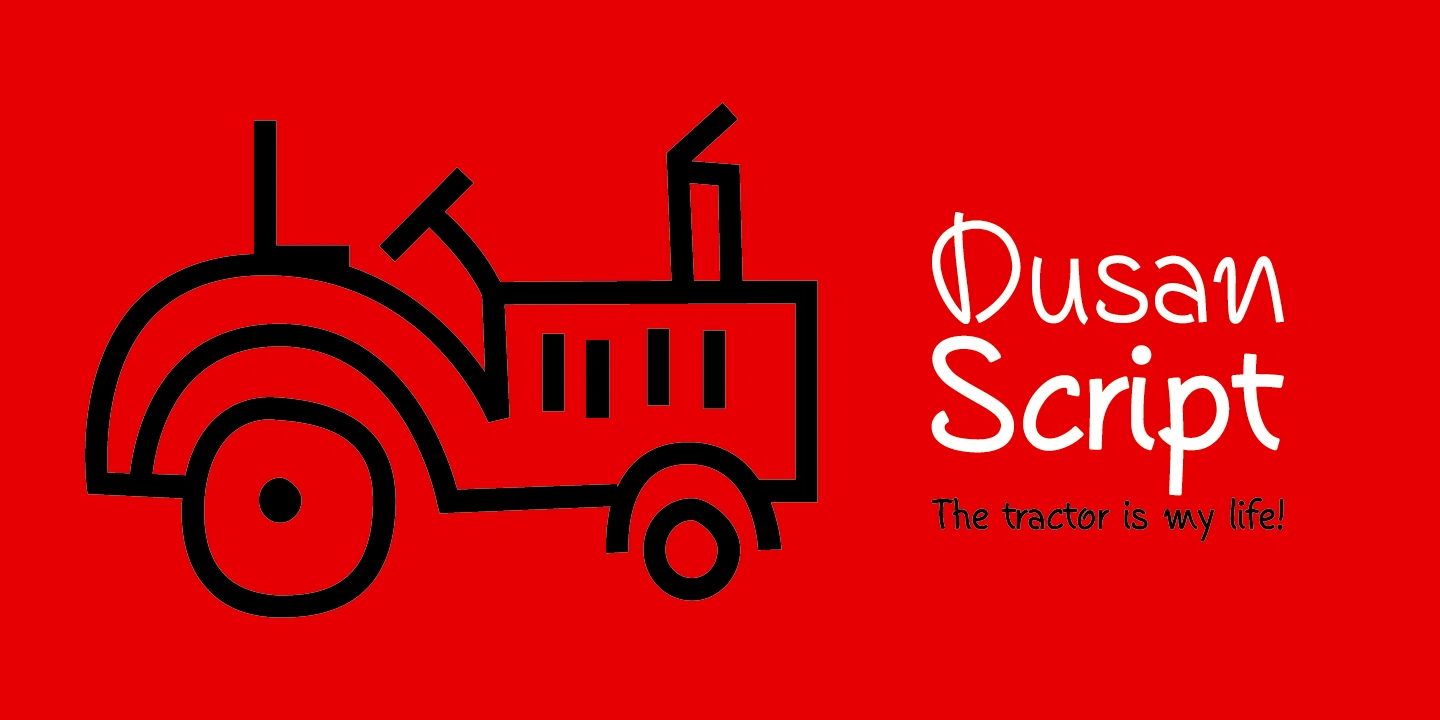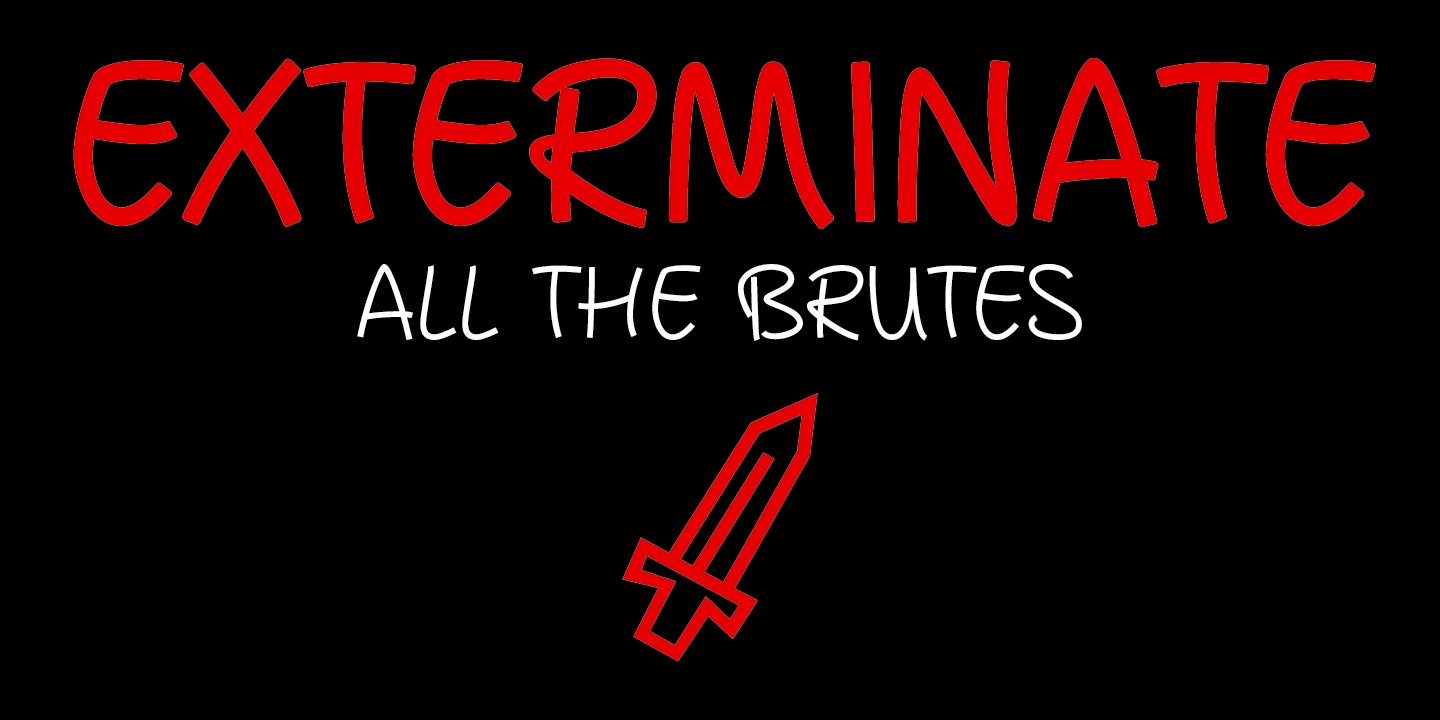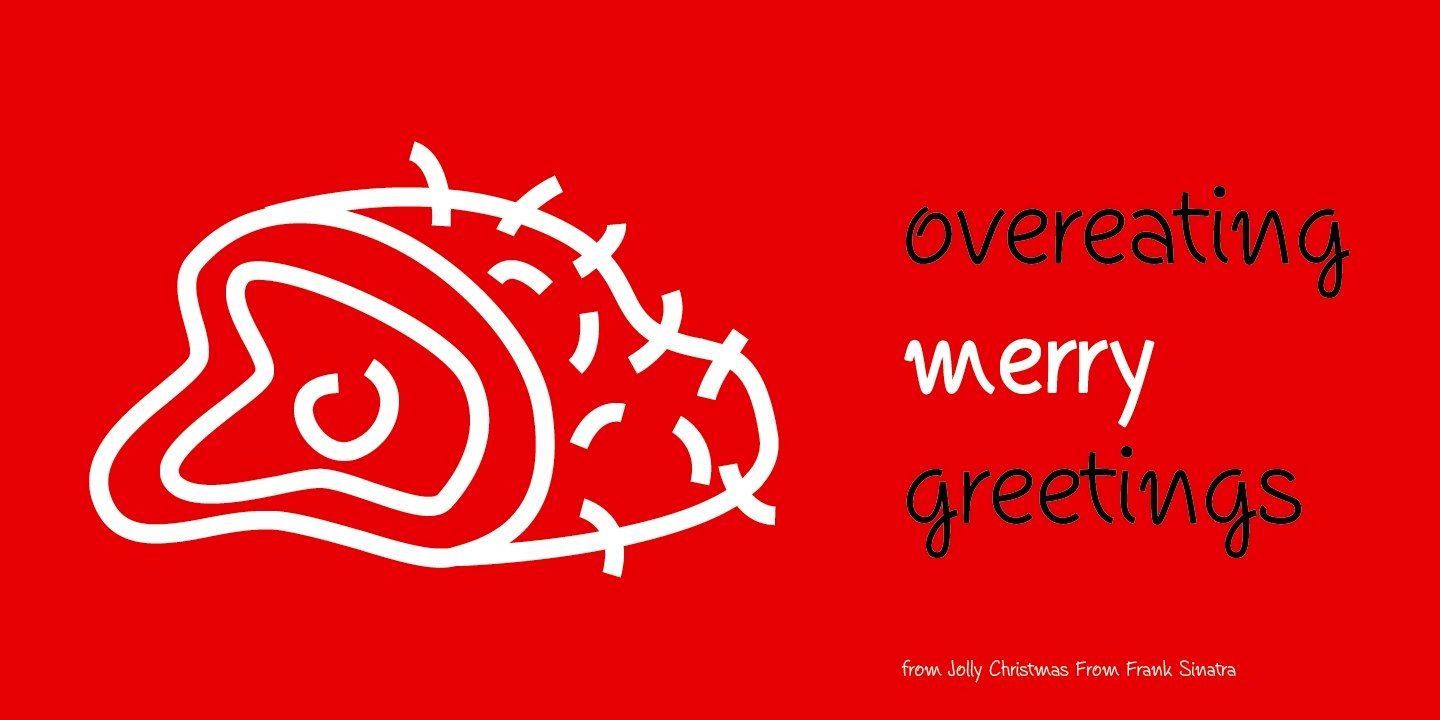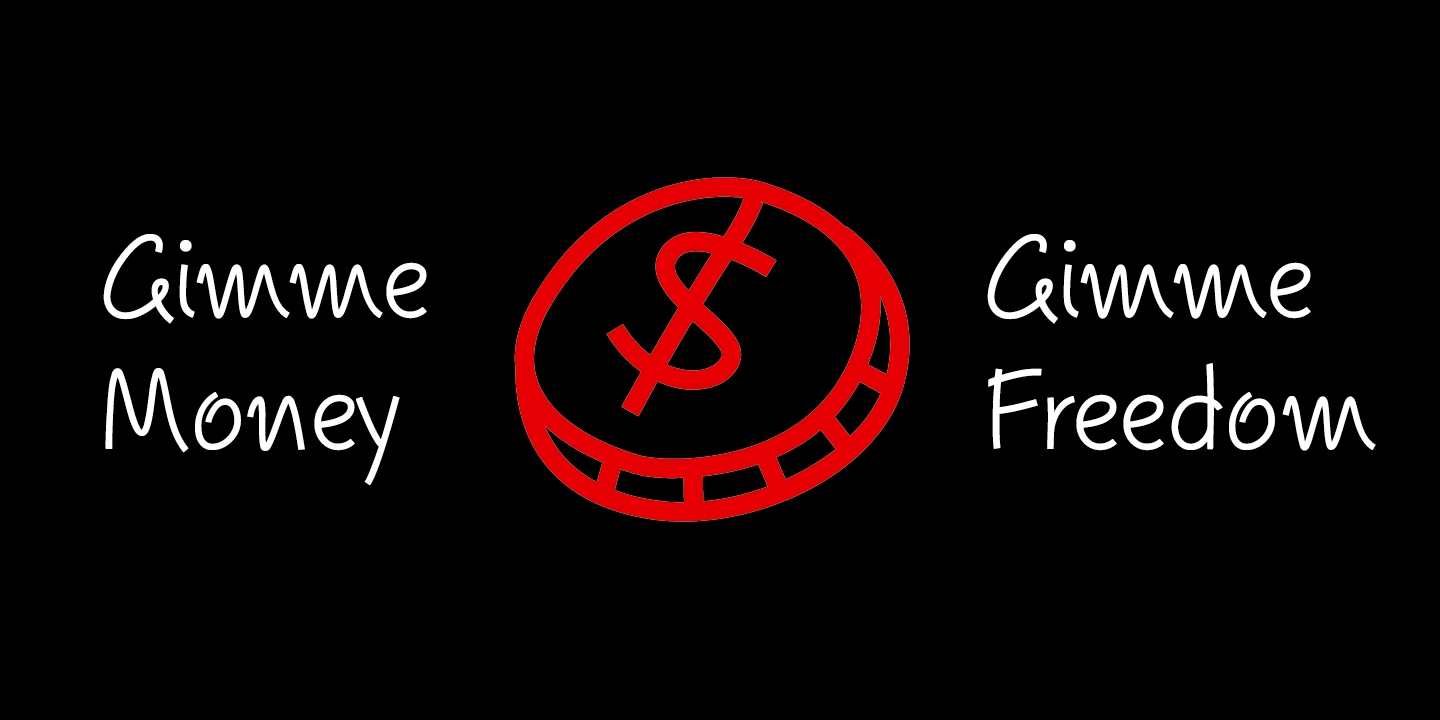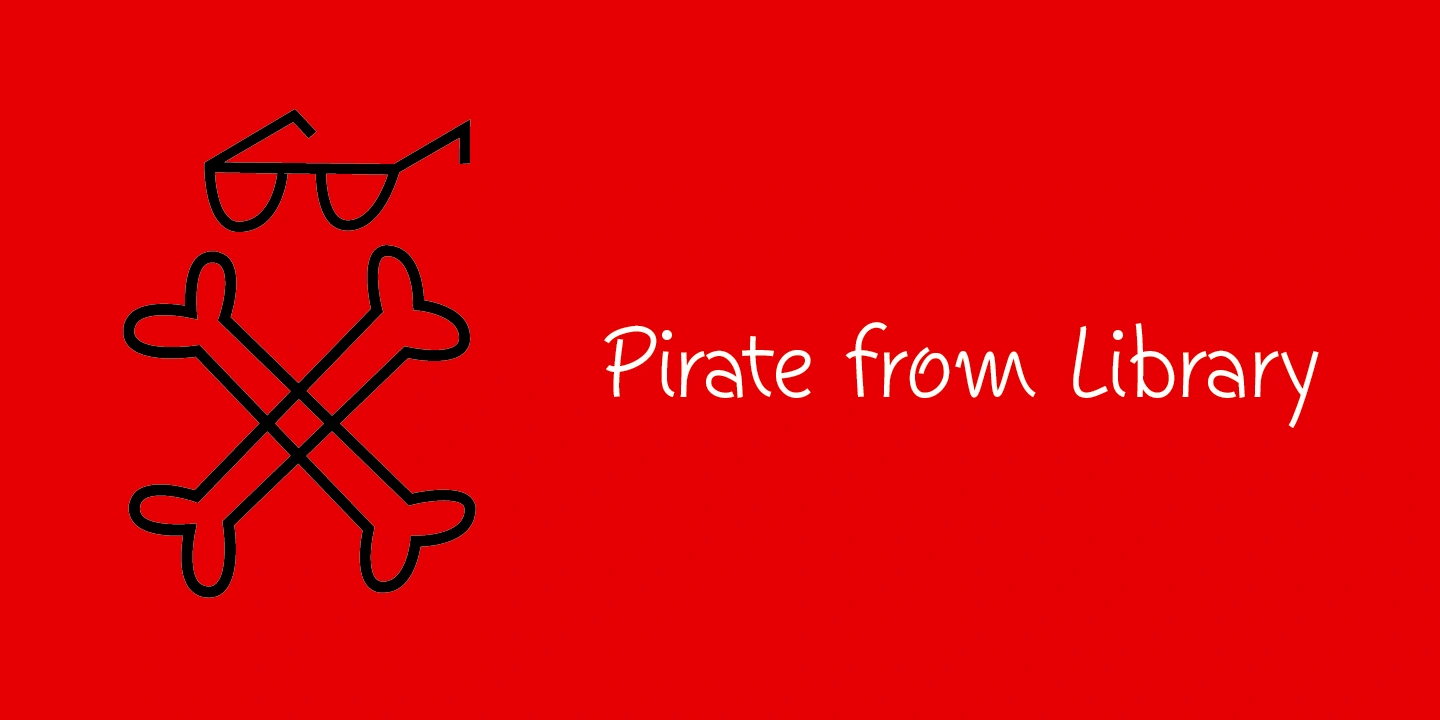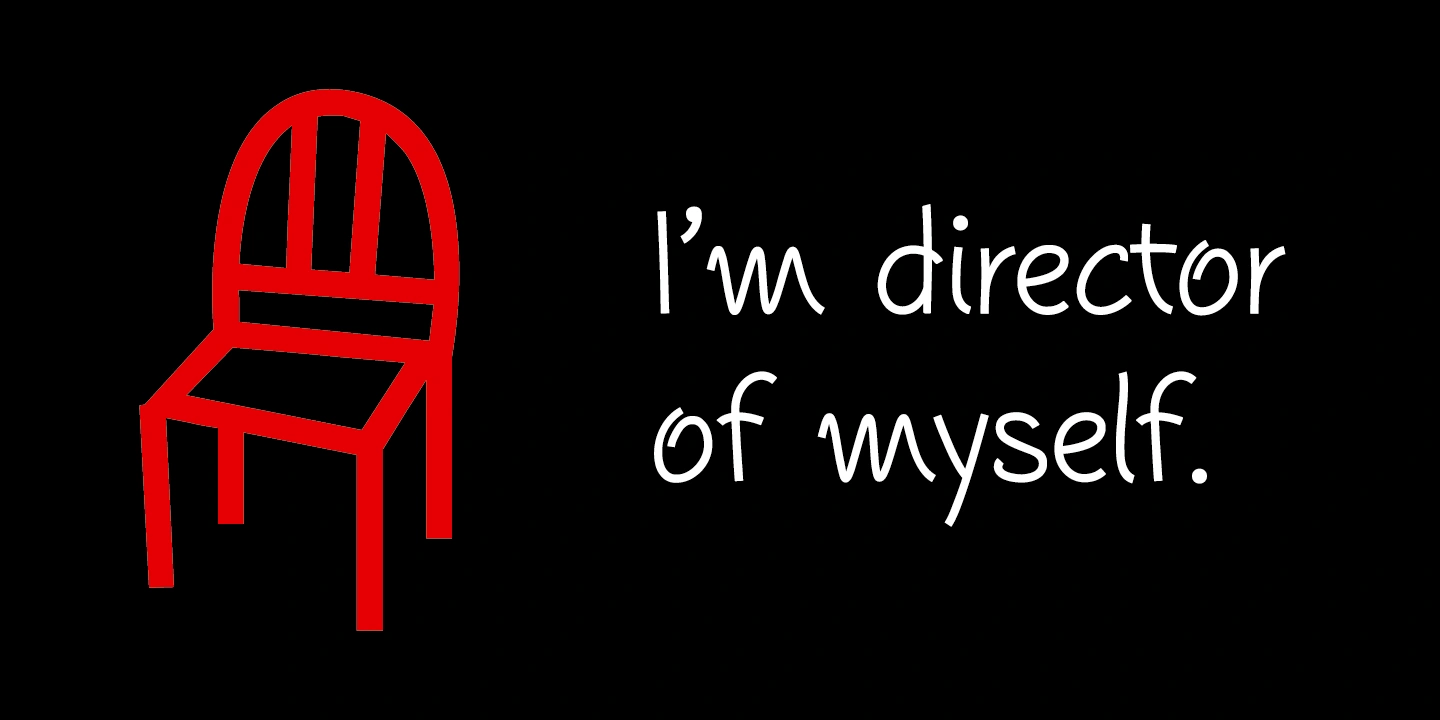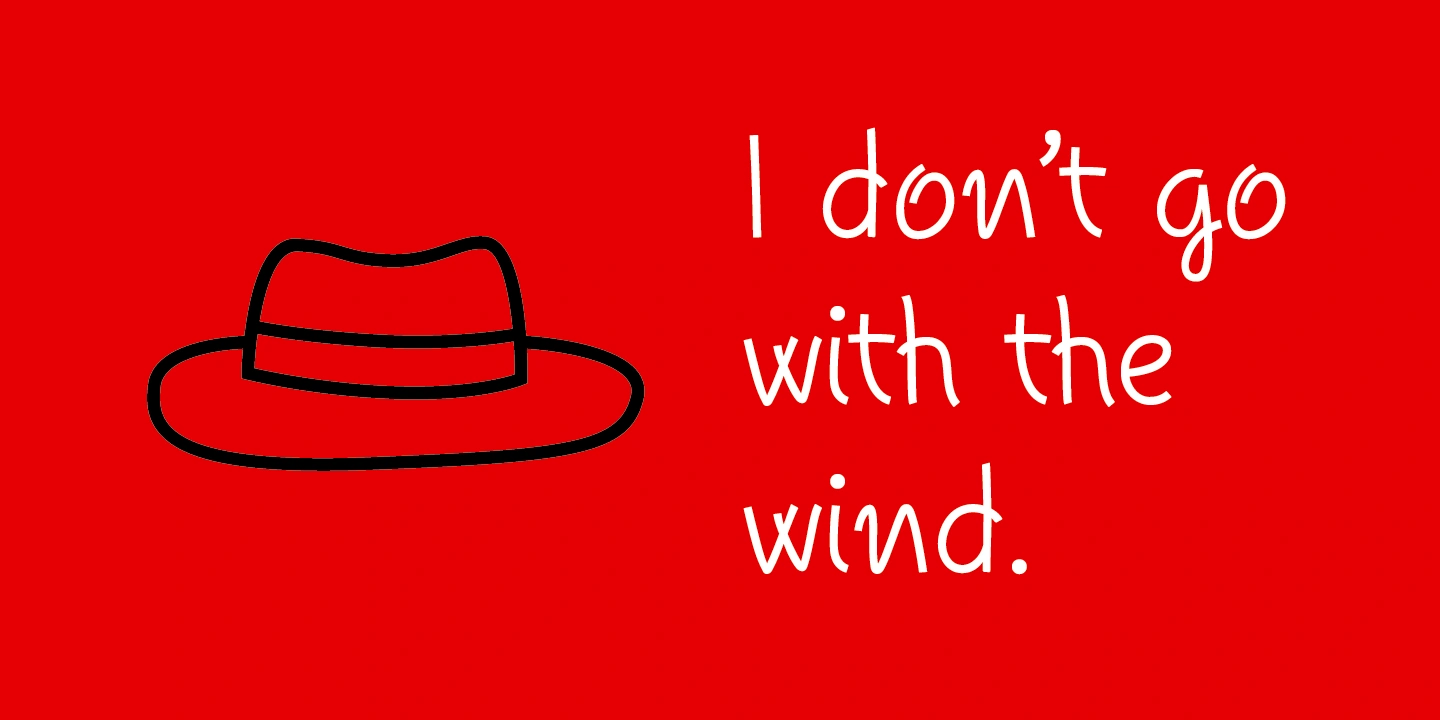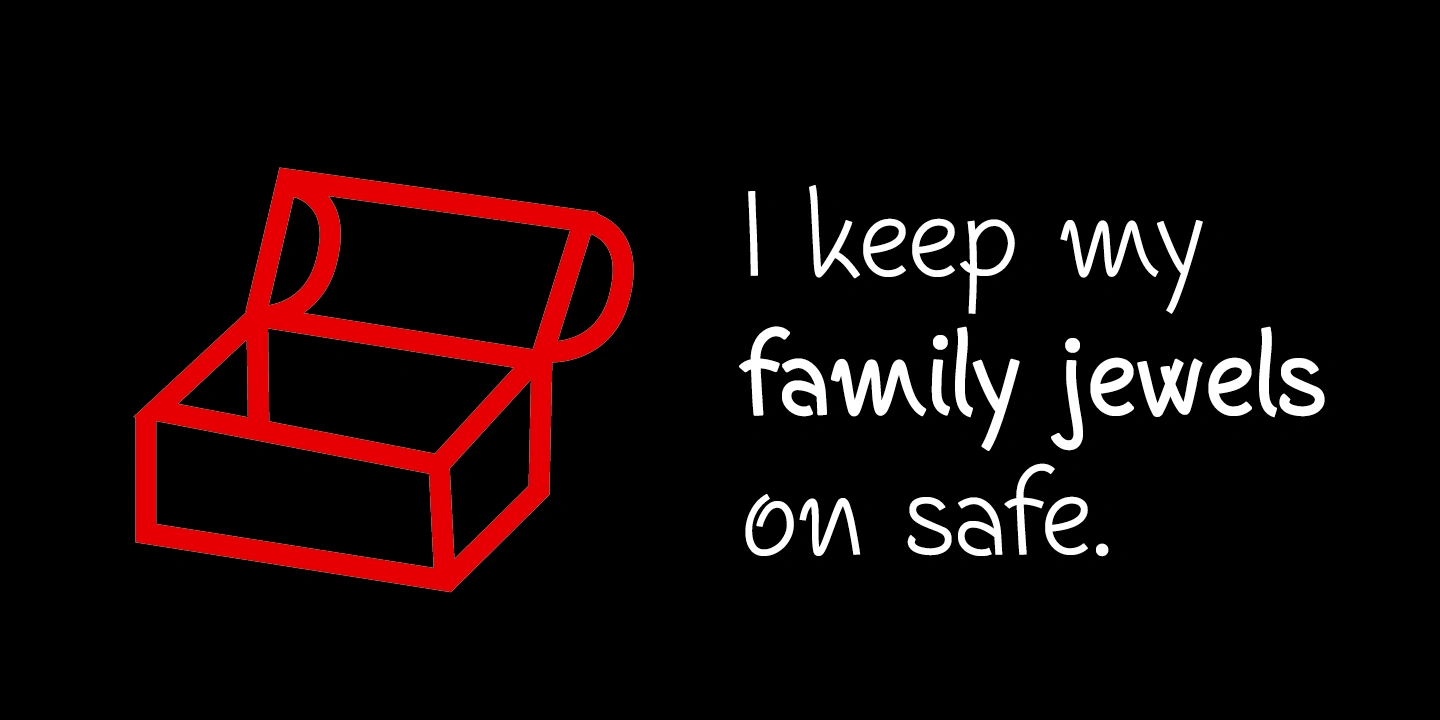
The Dusan Script font family is a wonderful set of handwriting script fonts that captures the graceful flow and idiosyncrasies of Dusan's penmanship. The Dusan Script font family has an airy, natural personality, with open counters and features that make it legible at small and large sizes. Dusan Script Family consists of two fonts, Regular and Bold, and offers a fresh handwriting style to grace invitations, cards, newsletters, advertisements and correspondence.